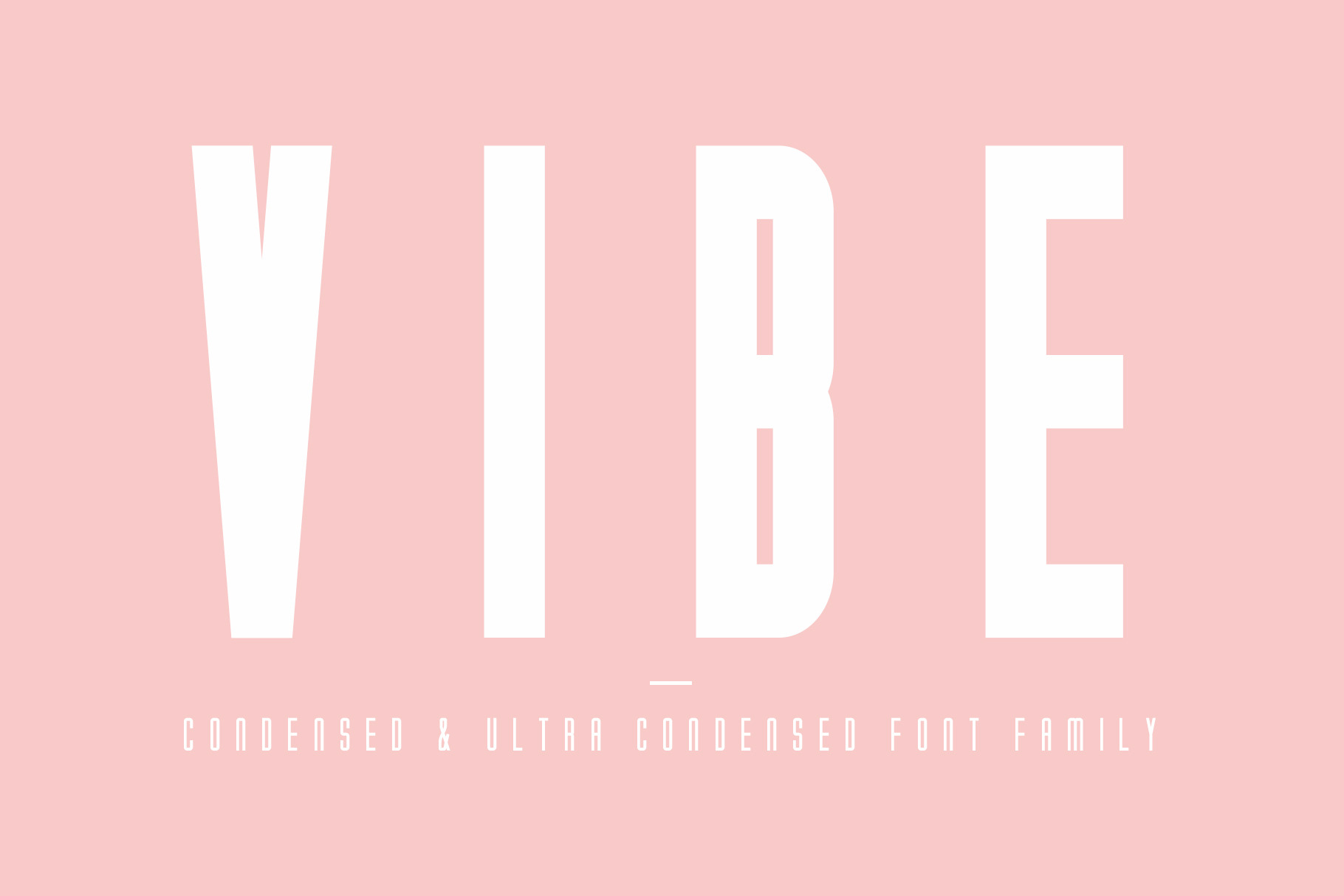
Vibe Condensed Font Family
VIBE is a classic, condensed and ultra condensed font family inspired by old Hollywood, 60s advertising and sign-painting. Exaggerated line lengths make it perfect for movie posters, art pieces and anywhere you might need to squeeze some more letters into!
- 12 fonts included
- 6 condensed
- 6 ultra condensed
- 3 weights (Light, Regular & Bold + Italics)
- All caps font family
- Numbers, punctuation & symbols